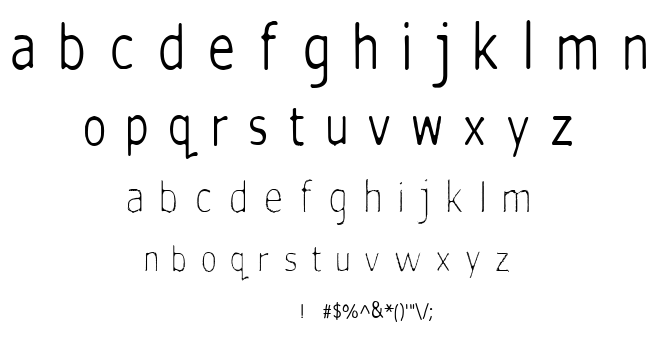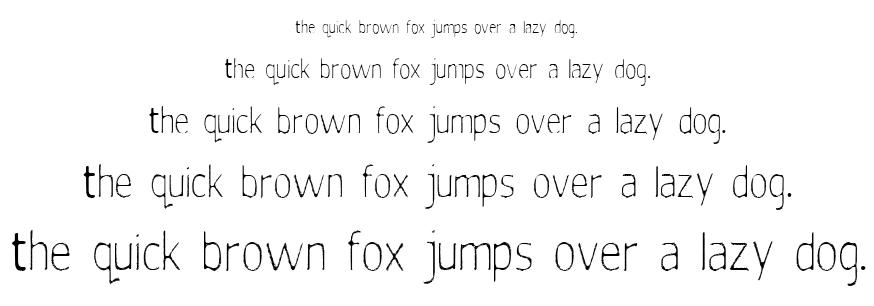
Silent Witness font.
Created to pay homage to one of the best BBC Drama series aired on out TV screens. It began way back in 1994 with forensic pathologist, Dr. Sam Ryan, it continues fifteen years with new character a forensic anthropologist, Dr Nikki Alexander taking the lead role. 15 year after its inception and in our humble opinion it still has the same, if not more, gripping drama sequences, even with the latest gruesome and harrowing scenes in recent seasons.
This font is based on the title sequence the lowercase letters have been purposely eroded to add an extra layer mystery…. If you like it this is shareware so after continued use please donate whatever you can using the donation link to spideray@windowstipsclub.com